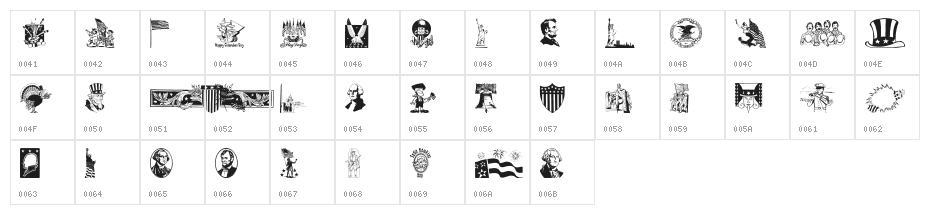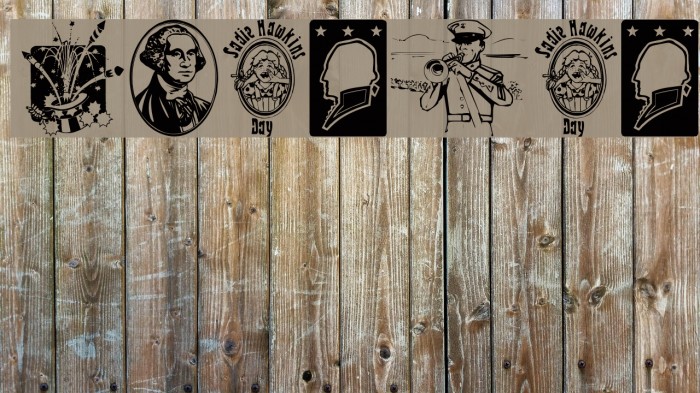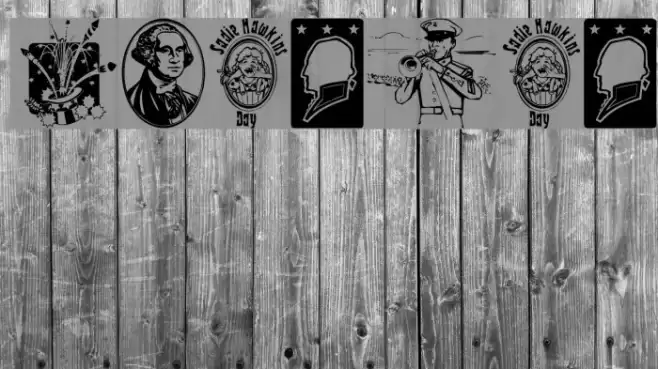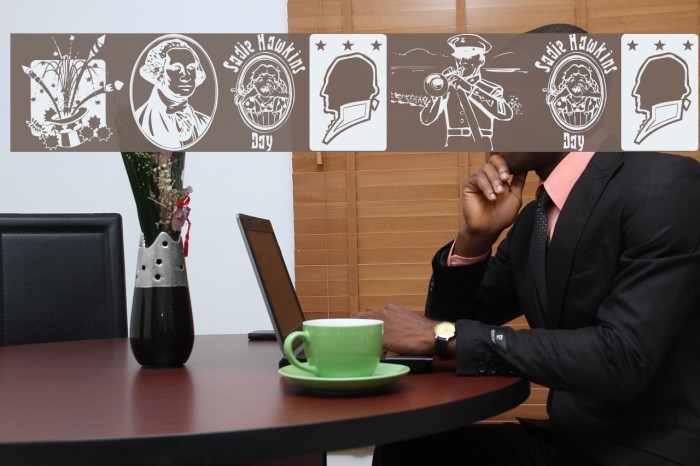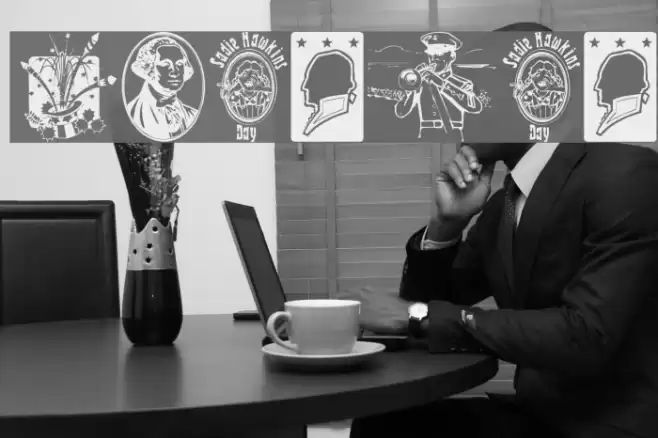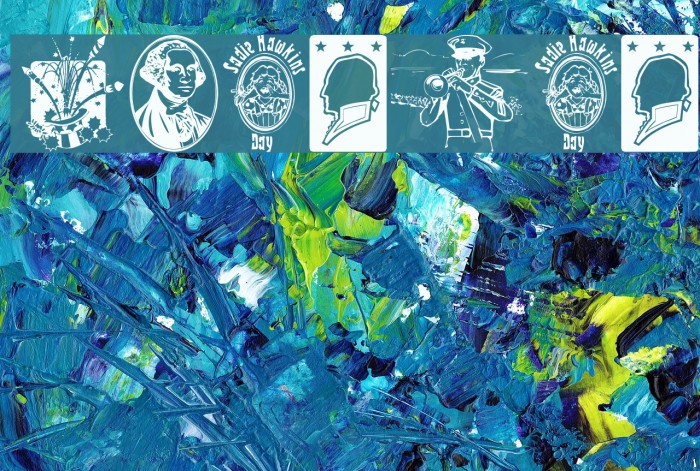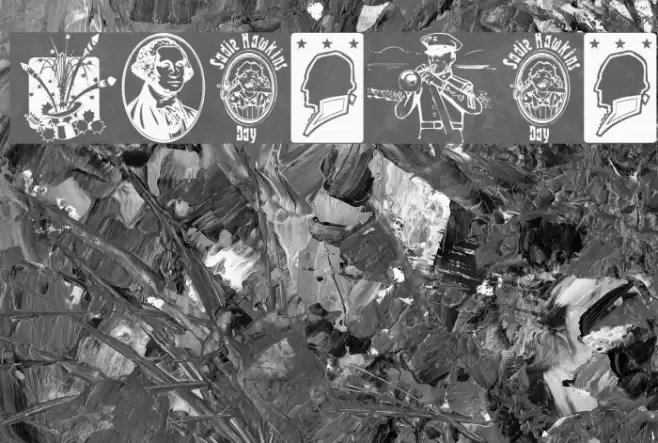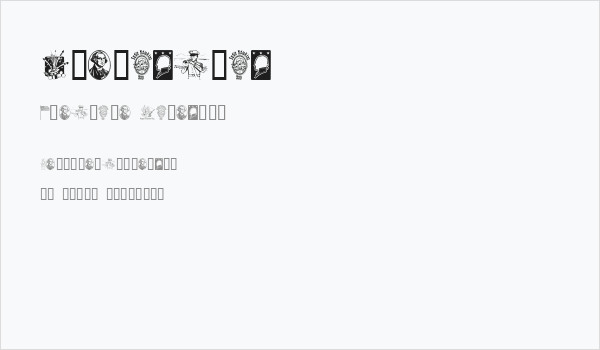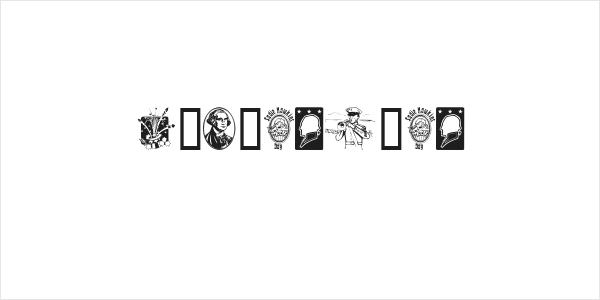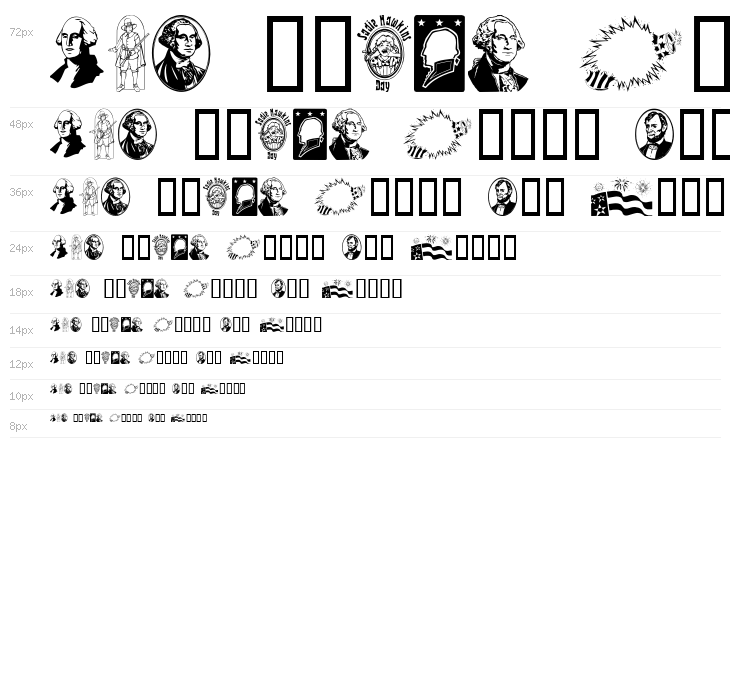
Americanic Font
Americanic Description
This is not a traditional font but rather a collection of decorative illustrations with an American patriotic theme. Each character is represented by a unique graphic, featuring iconic symbols such as the American flag, historical figures, and other national emblems. The style is highly decorative and thematic, focusing on celebrating American culture and history. The graphics are detailed and intricate, making them suitable for specific thematic projects rather than general text use.
| Use Case | Thematic decorations, event materials, educational graphics. |
| Proposed Projects | Ideal for projects celebrating American holidays, historical events, or patriotic themes, such as posters, banners, or educational materials. |